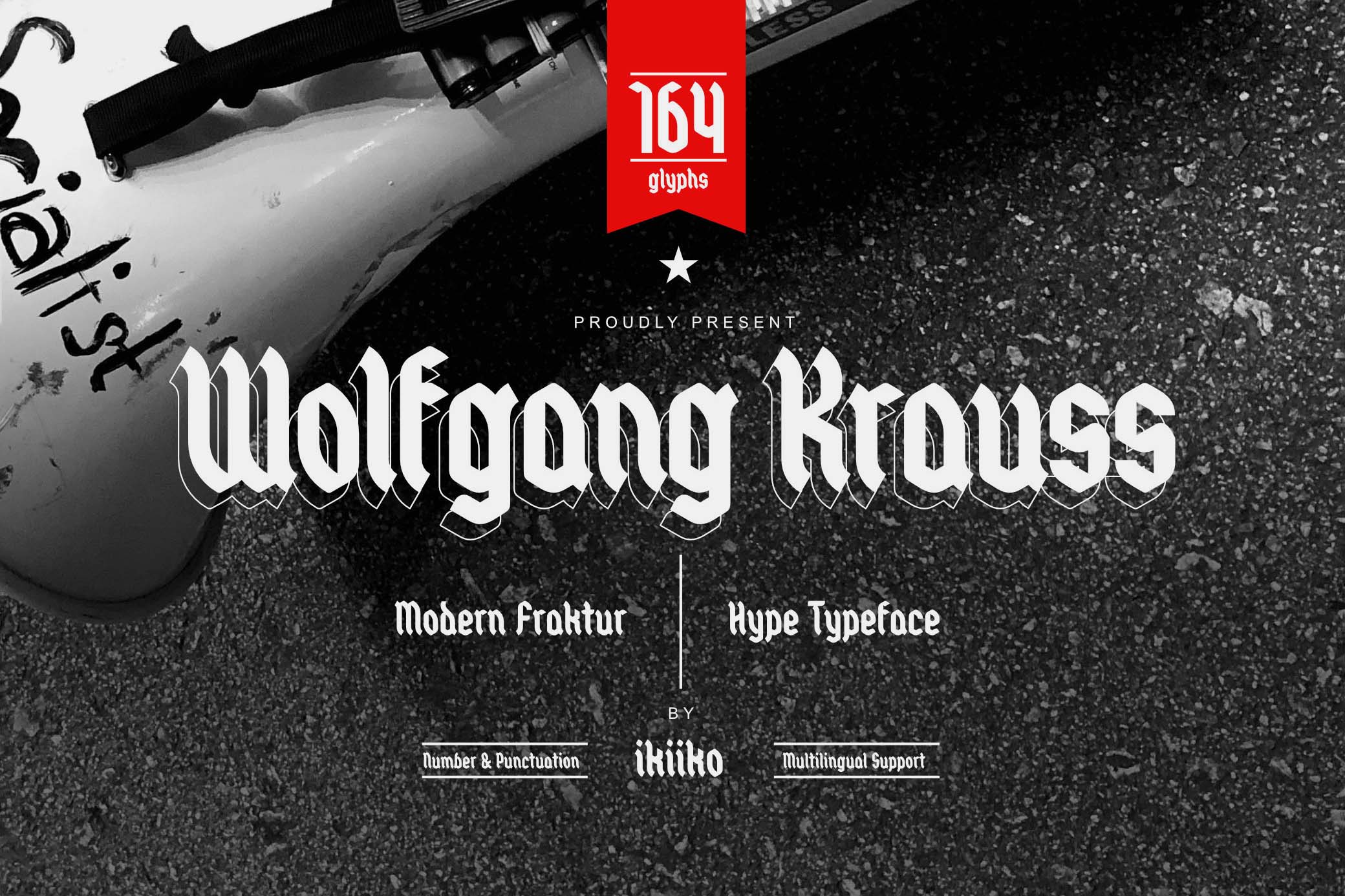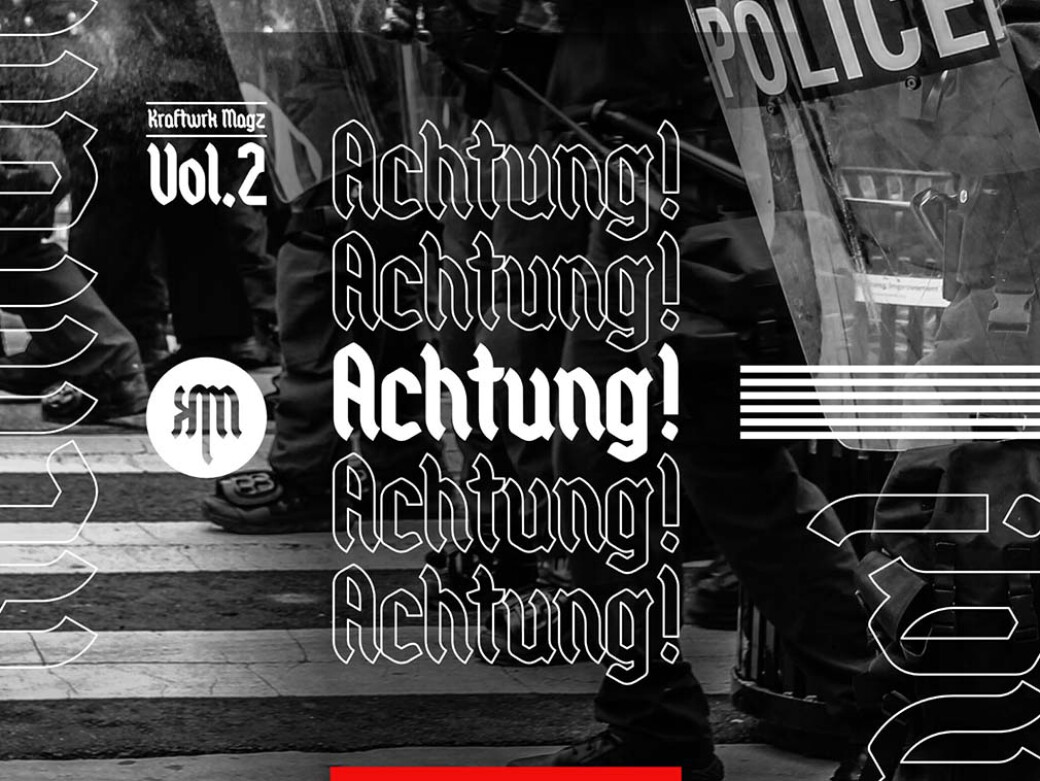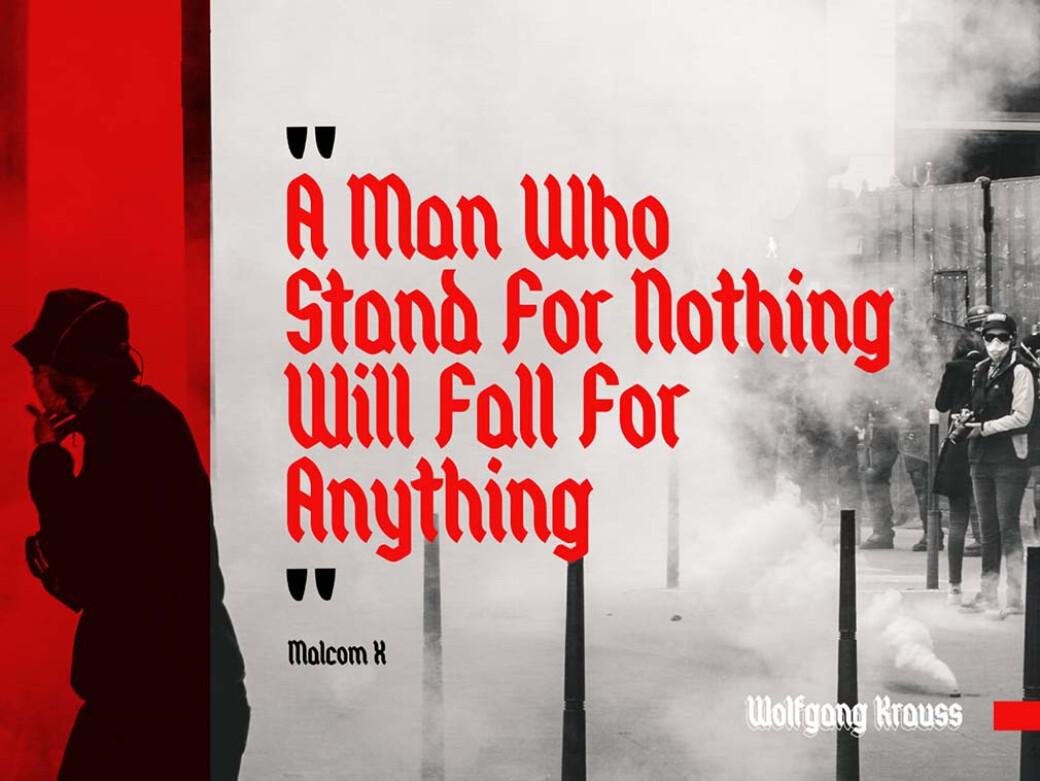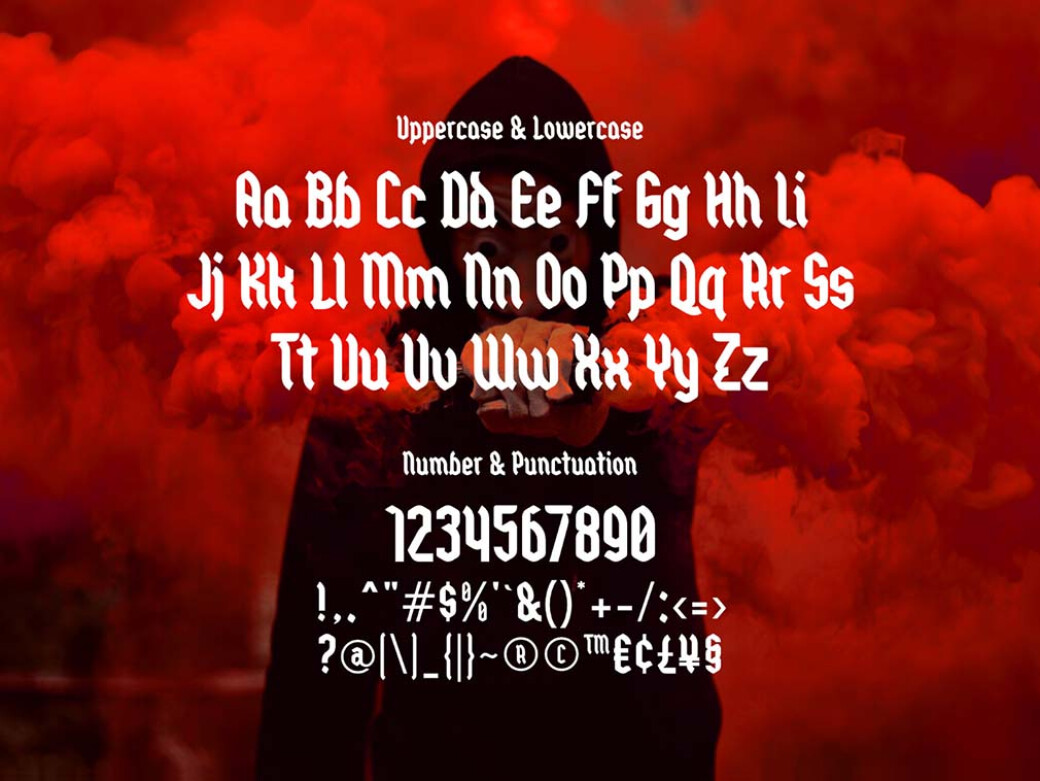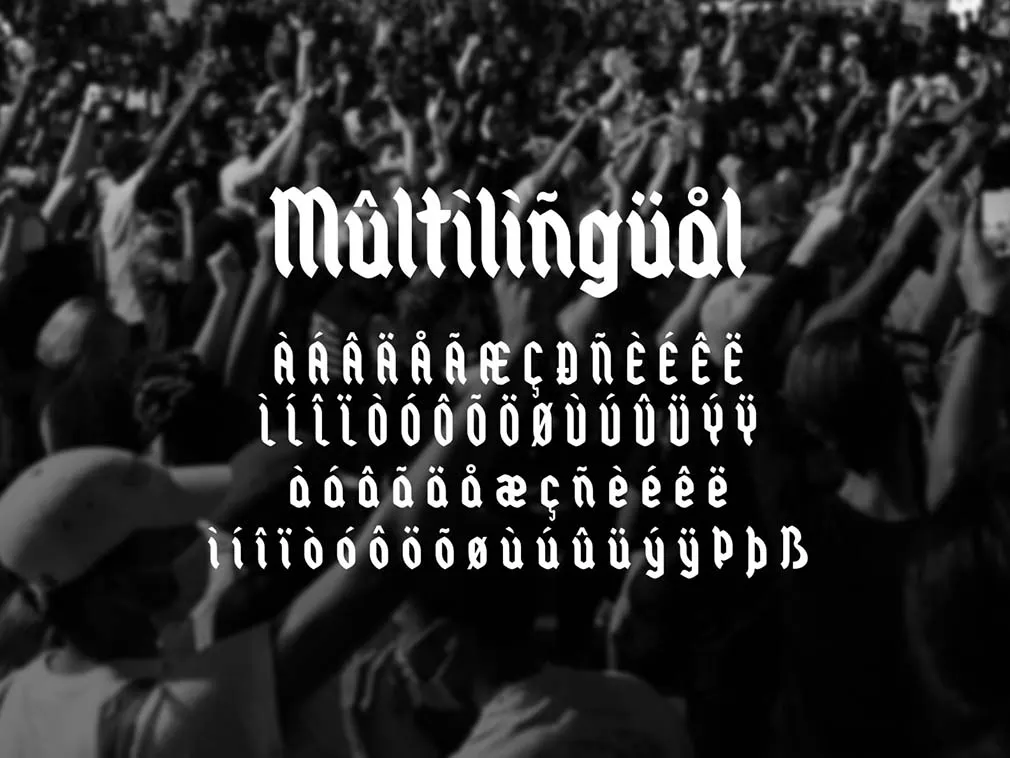
Wolfgang Krauss — Modern Fraktur Type
Take a gothic font, add some modern feel to it and boom, you have Wolfgang Krauss! Embracing the vibe of old mysterious books, this type will become the highlight of your design.It’s hard to deny that Wolfgang Krauss has a unique appearance that catches all the attention the moment you see it. But that’s not the only thing about the font making it so special. Its wide feature set will make your artistic heart skip a beat! The font provides upper and lowercase letters, numbers, punctuation and even multilingual support, so there is no such text that you can’t type with it.